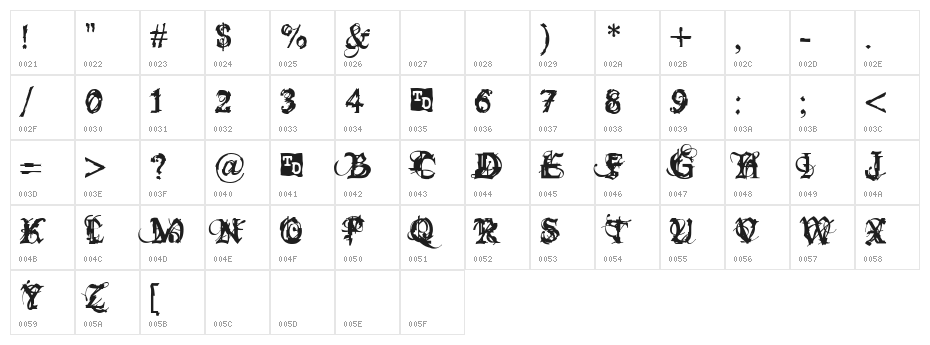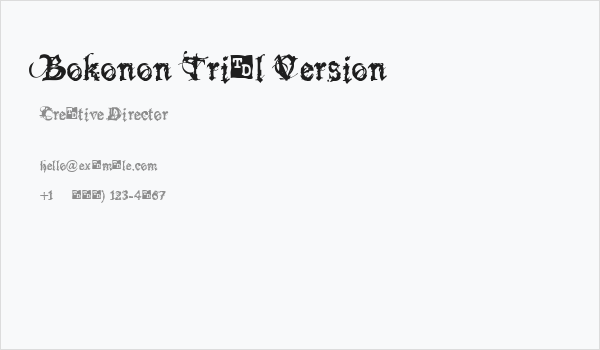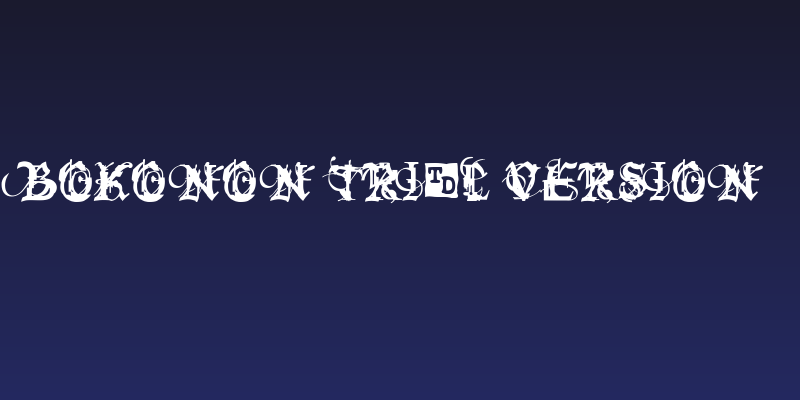
Bokonon Trial Version Font
Bokonon Trial Version Description
This font features an intricate and decorative style with a gothic influence. Each character is adorned with elaborate swirls and sharp edges, creating a sense of mystery and drama. The uppercase letters are particularly ornate, with embellishments that extend beyond the standard letterforms. The lowercase letters maintain the decorative theme but are slightly more subdued, allowing for readability while still retaining the unique style. Numbers and special characters follow the same design principles, making them cohesive with the alphabet. This font is ideal for projects that require a bold and artistic statement, such as posters, album covers, or themed event invitations.
Overall StyleGothic, Decorative
Proposed ProjectsIdeal for posters, album covers, themed event invitations, and artistic projects.